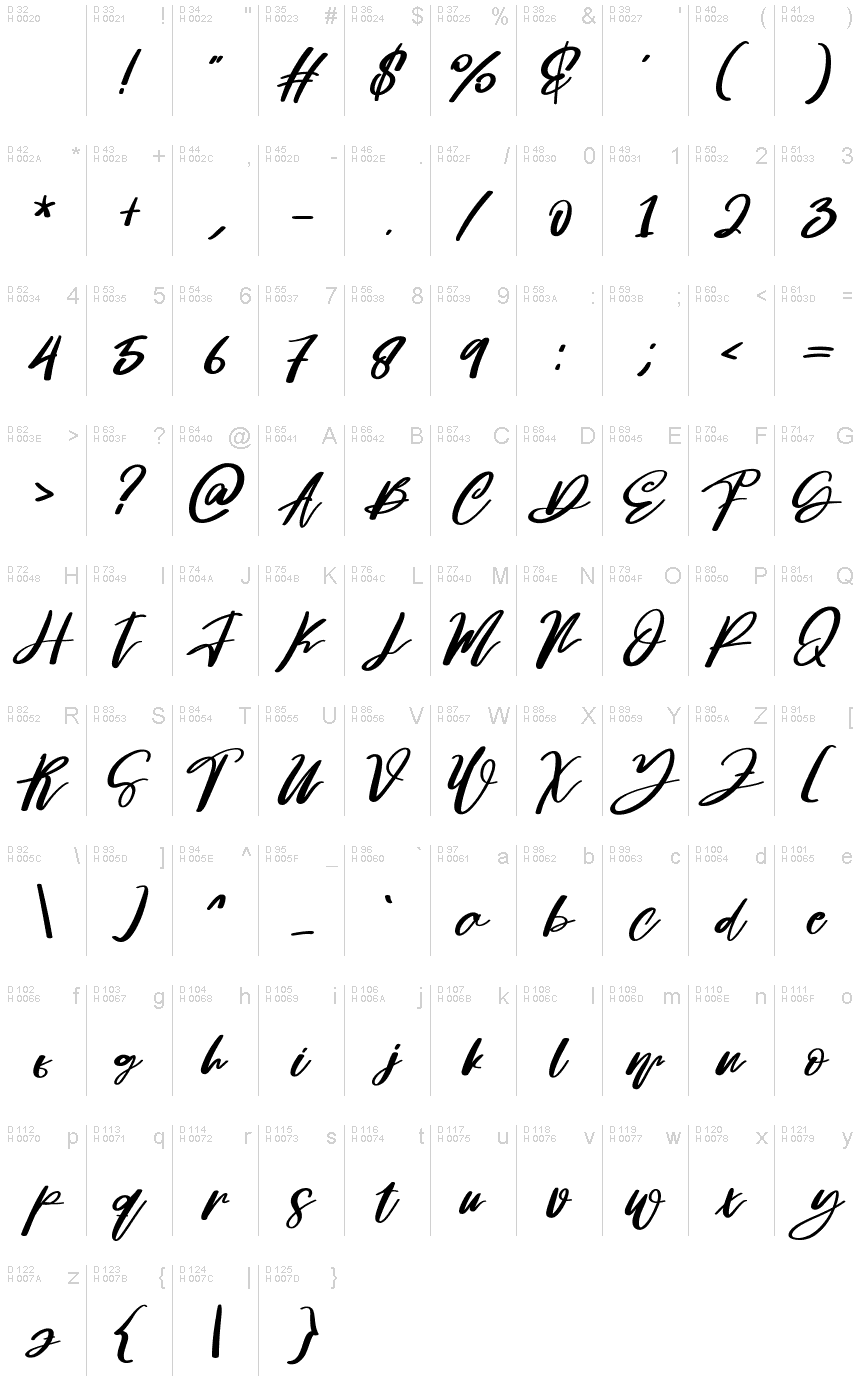
Pennature
Pennature is the perfect semi-bold typeface for adding a touch of elegance to your projects. Designed by scratchones, this handwritten signature font style exudes sophistication and personality. Pennature is suitable for a wide range of projects, from wedding invitations and greeting cards to logos and branding materials. Its unique handwritten style adds an authentic touch that will make your designs stand out. With its narrow width, this font is also ideal for creating eye-catching headlines or captions that demand attention. Enhance your designs with Pennature today!
the latest style letters are perfect for wall displays, wedding invitations, social media post logos, advertisements, product packaging, product designs, labels, photography, watermarks, invitations, stationery, and any project that requires taste handwriting.